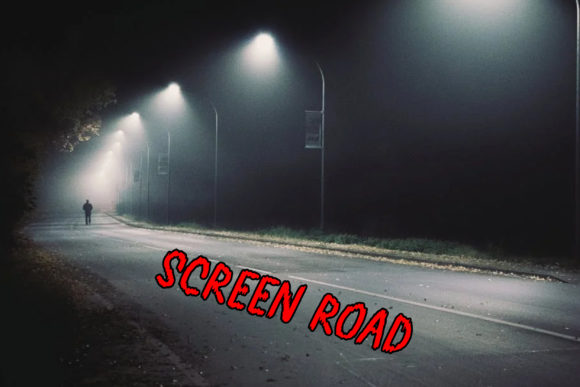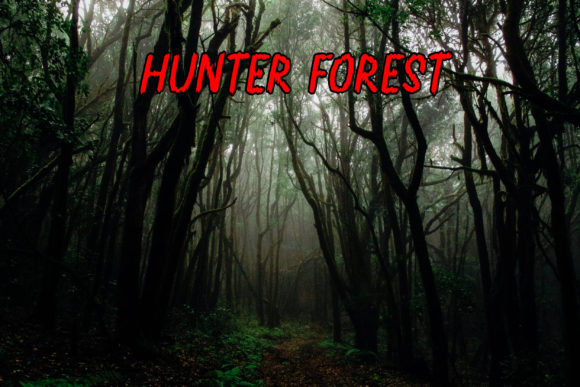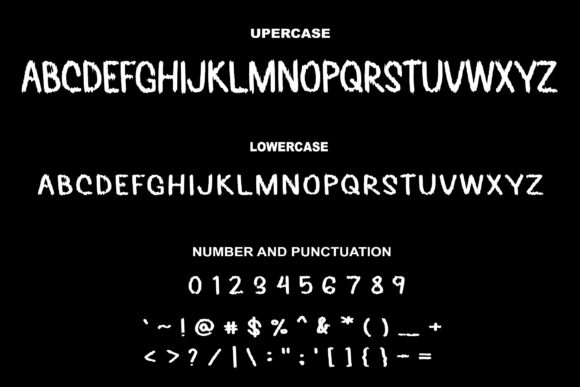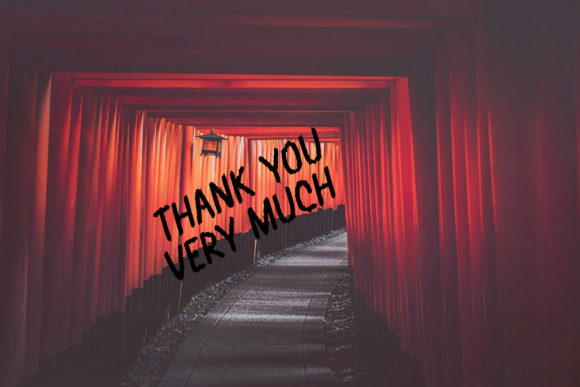
Introduction to Scary Mystical Font
Scary Mystical is a quirky-lettered and spooky display font.
It is perfectly suitable for any Halloween-related project or crafty idea The only limit is your imagination.